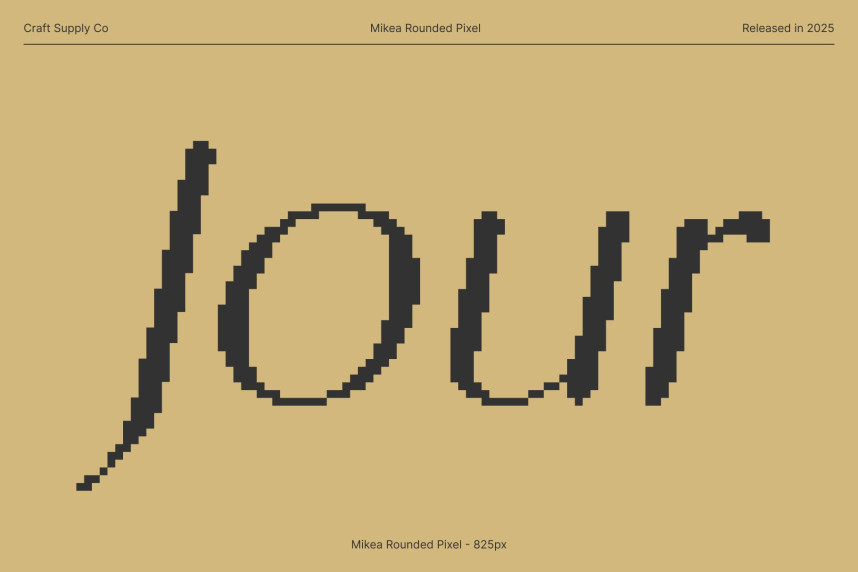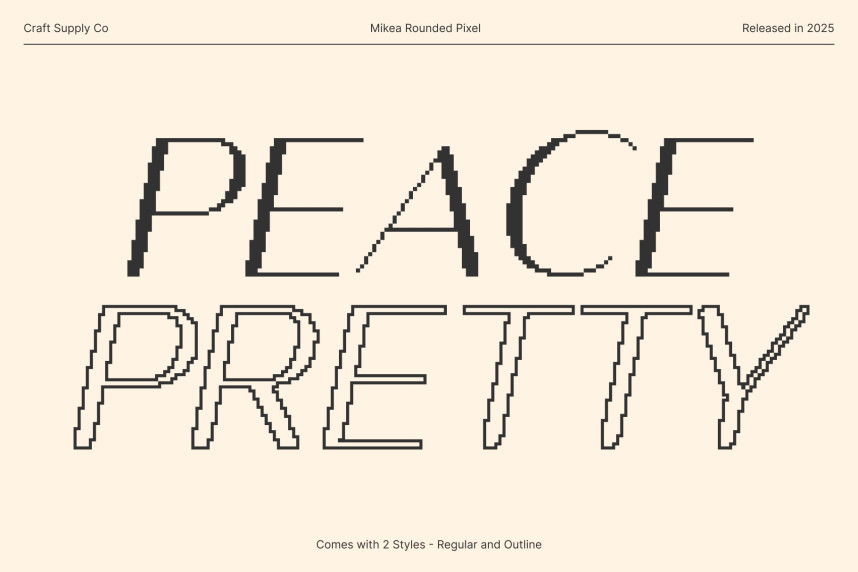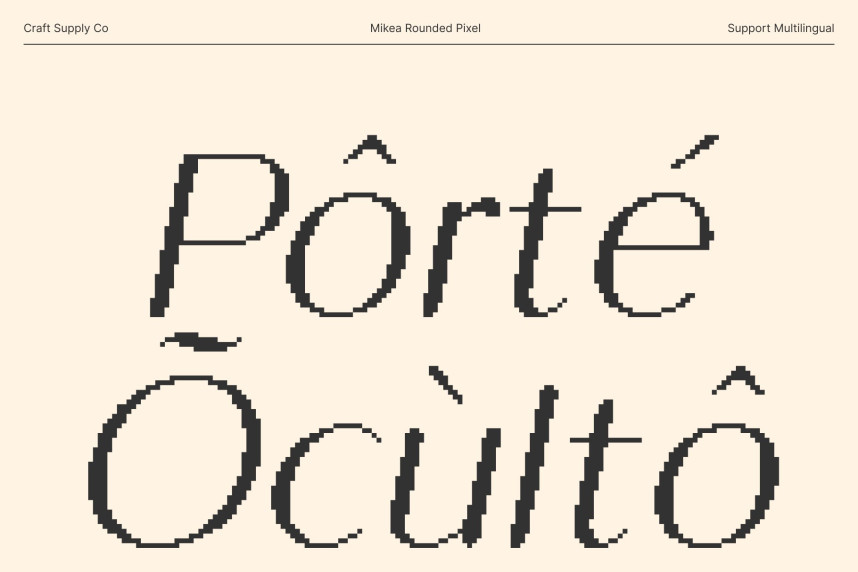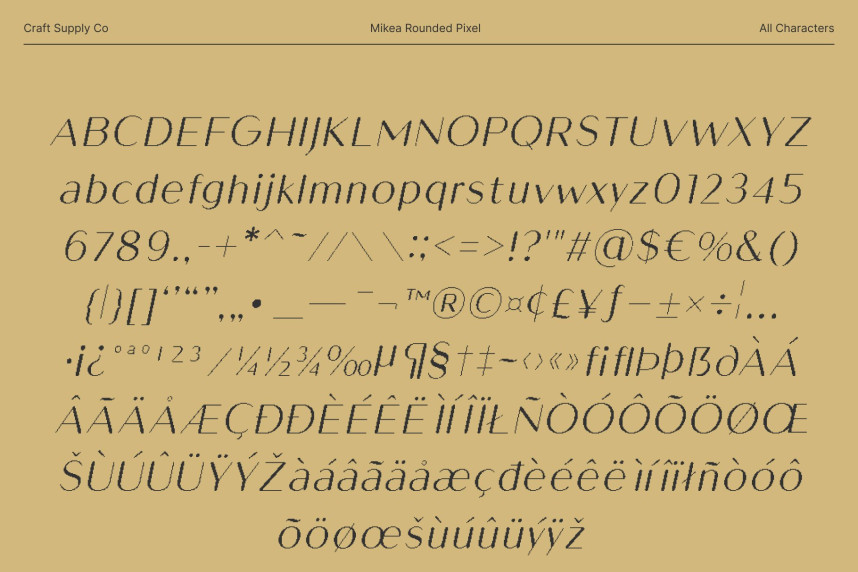
Mikea Rounded Pixel Font
Mikea Rounded Pixel Font – Luxury Sans Serif Display Font with Pixel Precision Polished and Refined for Sophisticated Designs. This is a luxury sans serif display font crafted to convey elegance, exclusivity, and refined sophistication. Its clean, smooth lines and perfectly balanced proportions create a polished visual presence, making it ideal for high-end branding, editorial layouts, and premium product packaging.